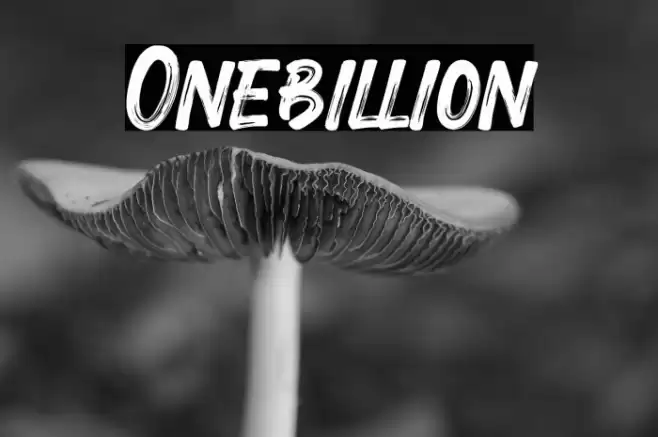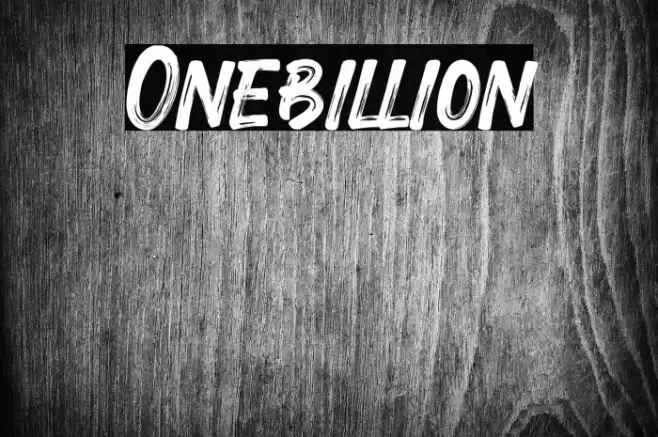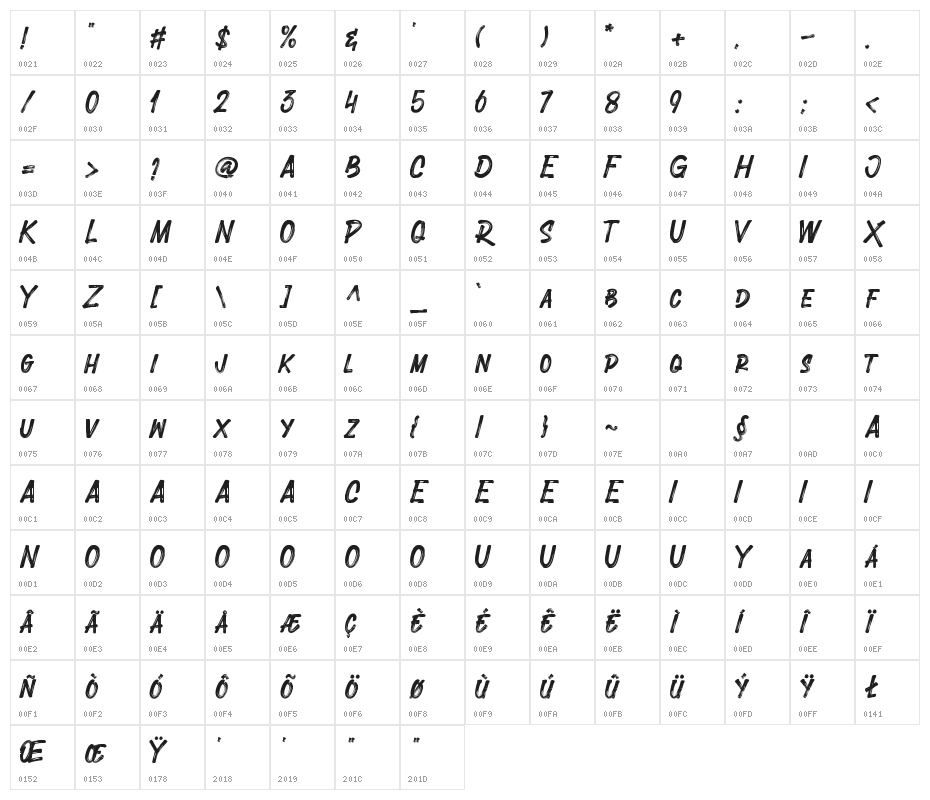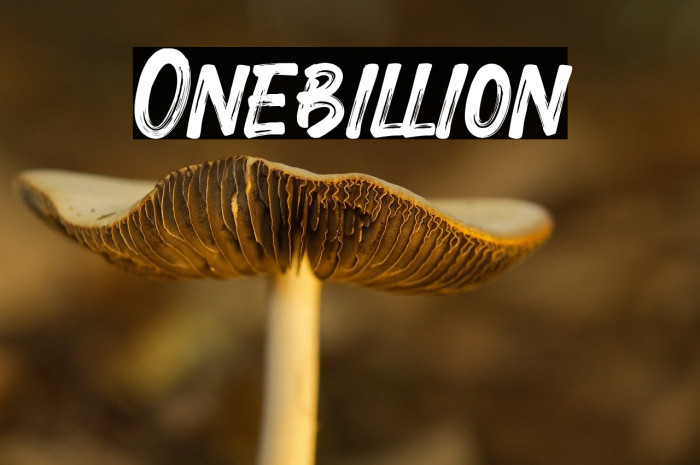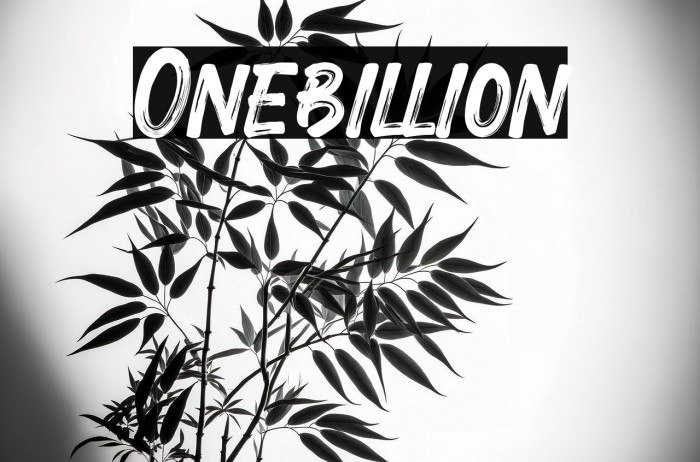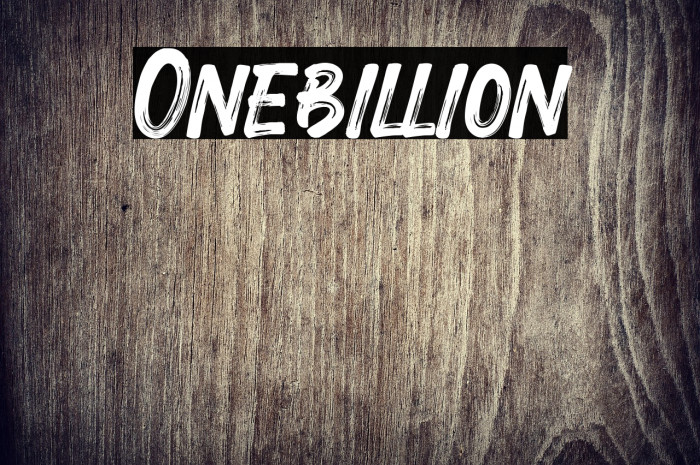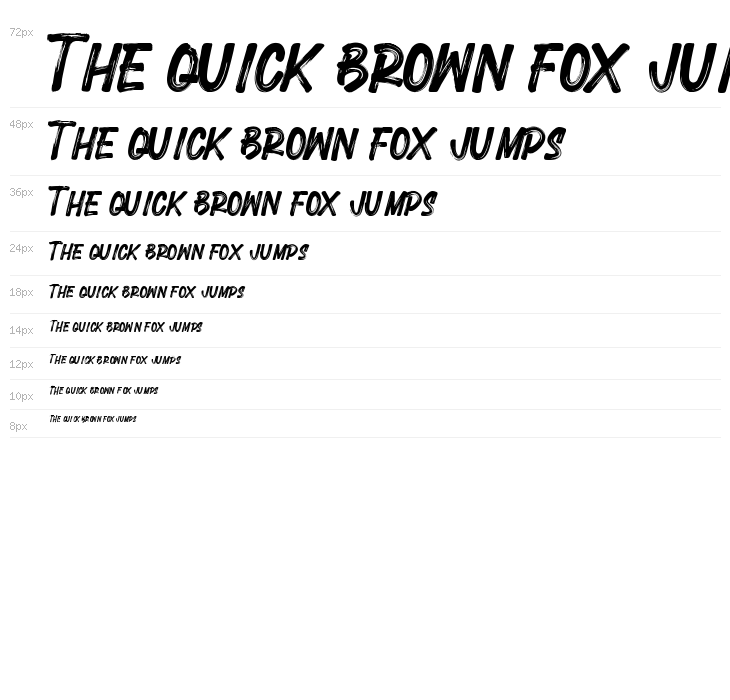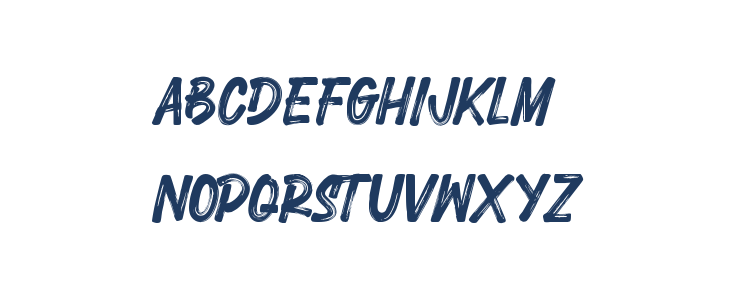
Onebillion Font
Onebillion Description
This font features a bold, energetic style with brush-like strokes that give it a dynamic and artistic appearance. The characters are slightly slanted, adding to the sense of motion and fluidity. The uppercase and lowercase letters maintain a consistent style, with each character exhibiting unique brush textures and varying stroke widths. The numbers and special characters complement the alphabet with the same expressive flair. This font is ideal for projects that require a lively and creative touch, making it suitable for artistic designs, posters, and branding that aims to capture attention.
A bold, brush-style font with dynamic, artistic strokes from Regular fonts.
- Proposed Projects: Ideal for posters, artistic designs, branding, and creative projects.
- Overall Style: Modern, Artistic